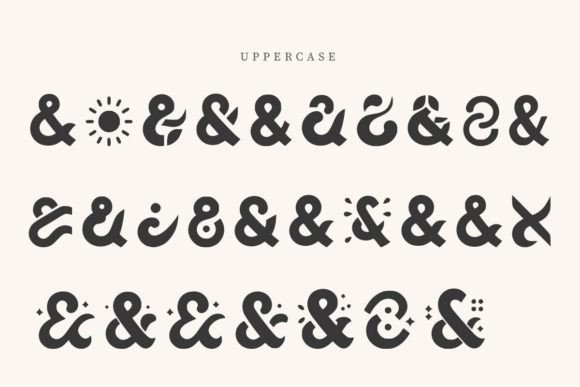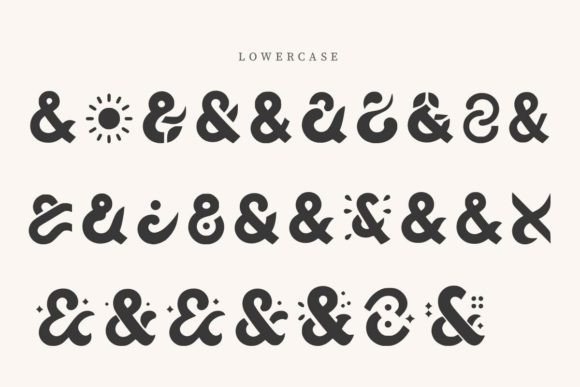
Ampersand Font: Elevate Your Designs with this Cool Dingbat Font
Are you a designer or crafter looking for a unique and versatile font to add a touch of personality to your projects? Look no further than the Ampersand Font! This cool dingbat font is specifically designed to contain glyph illustrations of ampersands, making it perfect for a wide range of creative applications.
What is Ampersand Font?
Ampersand Font is a dingbat font that features a collection of ampersand glyphs, each with its own distinct character and style. Unlike traditional fonts, which are made up of letters and numbers, dingbat fonts are comprised of symbols and glyphs, making them ideal for adding visual interest to your designs.
What Can I Use Ampersand Font For?
The possibilities are endless with Ampersand Font! This versatile font is suitable for a wide range of creative projects, including:
- Crafts: Add a personal touch to your handmade crafts, such as paper crafts, scrapbooking, and card making.
- Stickers: Create custom stickers with the Ampersand Font for your laptop, water bottle, or any other surface you want to decorate.
- Decorations: Use the font to create beautiful decorations for your home or office, such as wall art, garlands, or gift tags.
- Journals: Add a touch of personality to your journal or planner with the Ampersand Font.
- Logos: Use the font to create a unique and memorable logo for your business or brand.
- Planners: Create custom planners, journals, or organizers with the Ampersand Font.
- T-shirts: Design custom t-shirts, hoodies, or other apparel with the font.
- Invitations: Create beautiful and unique invitations for weddings, parties, or other special events.
- Greeting Cards: Design custom greeting cards for birthdays, holidays, or other occasions.
Why Choose Ampersand Font?
So why choose Ampersand Font over other fonts? Here are just a few reasons:
- Unique and Versatile: The Ampersand Font offers a wide range of glyphs, making it easy to find the perfect ampersand for your project.
- Scalable: The font is scalable, making it perfect for use in a variety of projects, from small stickers to large banners.
- High-Quality: The font is made up of high-quality glyphs, ensuring that your designs look professional and polished.
Tips for Using Ampersand Font
Here are a few tips for getting the most out of Ampersand Font:
- Experiment with Different Glyphs: Try out different glyphs to find the one that works best for your project.
- Mix and Match: Combine the Ampersand Font with other fonts or design elements to create a unique look.
- Play with Size and Color: Experiment with different sizes and colors to add visual interest to your designs.
In conclusion, Ampersand Font is a versatile and unique dingbat font that is perfect for designers and crafters looking to add a touch of personality to their projects. With its wide range of glyphs, ease of use, and scalability, this font is sure to become a favorite in your design arsenal. So why wait? Download Ampersand Font today and start elevating your designs to the next level!